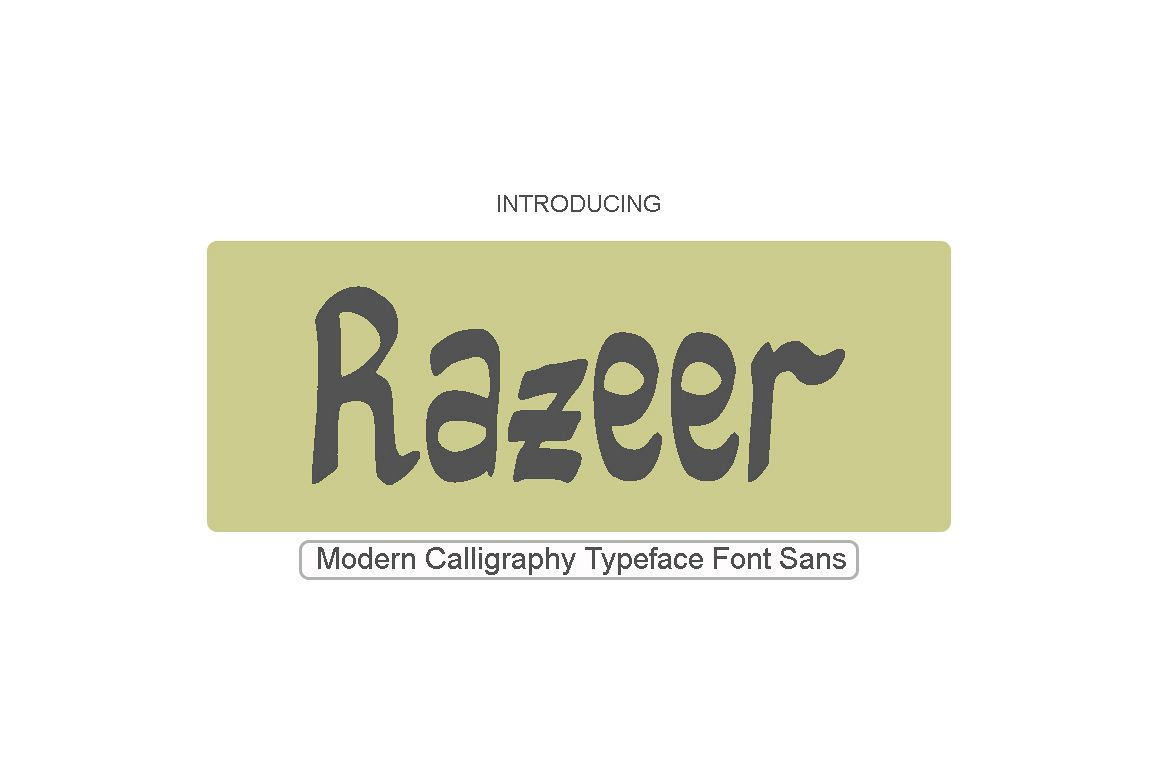
Razeer Sans
Razeer Sans is new sans serif font has a sleek typeface, font is very simple and easy to manipulate: logo, slogan and made in advertising messages.